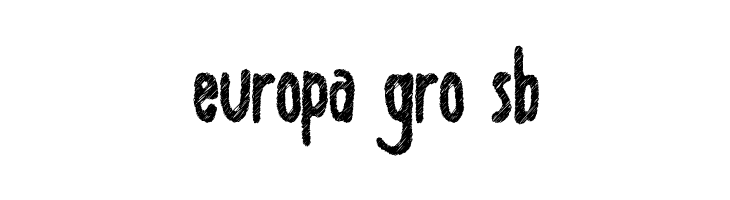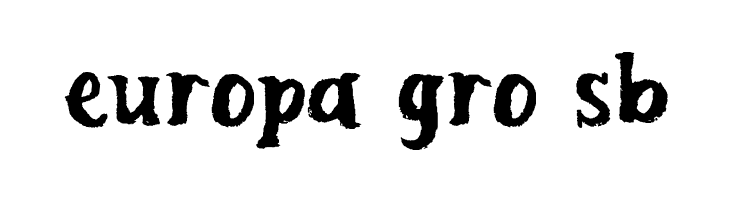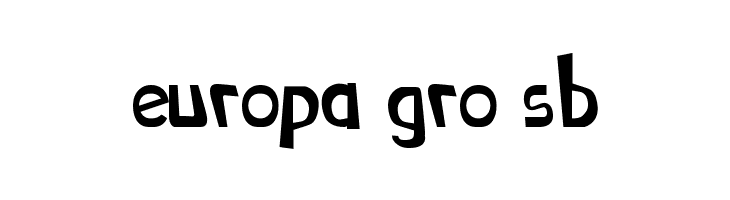
A bold, hand-drawn font with a playful, sketch-like texture.
A decorative and artistic font with swirling, hand-drawn letterforms.
A bold, italicized font with a textured, sketch-like appearance, exuding energy and motion.
Calligraphic numerals with elegant, flowing strokes.
A bold, geometric font with a modern, industrial feel.
A bold, hand-drawn font with a playful, scribbled texture.
A bold, playful handwritten font with a textured, scribbled appearance.
A pixelated, retro-style font with a digital, monospaced appearance.
A bold, textured font with a halftone effect, ideal for creative projects.
A bold, elegant script font with flowing, cursive letterforms and high contrast.
A bold, blocky font with strong vertical emphasis and geometric precision.
A bold, geometric font with a three-dimensional, sculpted look.
A bold, geometric font with sharp angles and a modern, dynamic style.
A classic serif font with high contrast and elegant design.
A playful, whimsical font with tall, narrow letterforms and irregular strokes.
A playful, hand-drawn font with rounded edges and a casual style.
A bold, playful font with a fluid, melting appearance and thick, uniform strokes.
A playful, handwritten-style font with bold, rounded characters.
A bold, distressed font with a vintage, textured appearance.
A bold, fluid script font with elegant, connected strokes and high contrast.
A cursive, handwritten-style font with elegant loops and fluid connections.
Cartoonish, beach-themed decorative font with illustrated characters.
A lively, cursive font with interconnected characters and a whimsical charm.
A lively, cursive script font with bold, flowing strokes.
A lively, cursive font with a playful, handwritten style.
A lively, handwritten cursive font with a playful and energetic style.
A bold, distressed font with a rugged, vintage aesthetic.
A bold, geometric font with a pixelated, retro digital aesthetic.
A bold, 3D block font with a textured, industrial appearance.